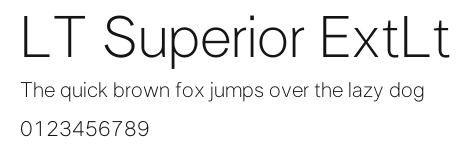
• Font Name: LT Superior ExtLt
• Full Font Name: LT Superior Extra Light
• PostScript Name: LTSuperior-ExtraLight
• Designer: Daniel Lyons
• Manufacturer: LyonsType
About LT Superior ExtLt.otf
LT Superior ExtLt.otf is a modern, elegant sans-serif font designed for ultimate readability and visual harmony. Perfect for branding, headlines, web design, and print materials.